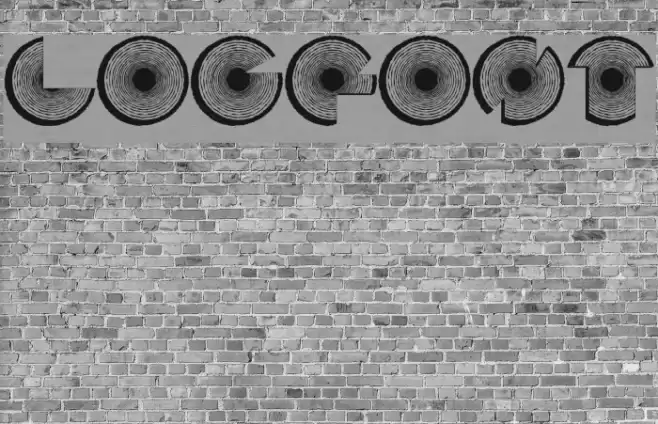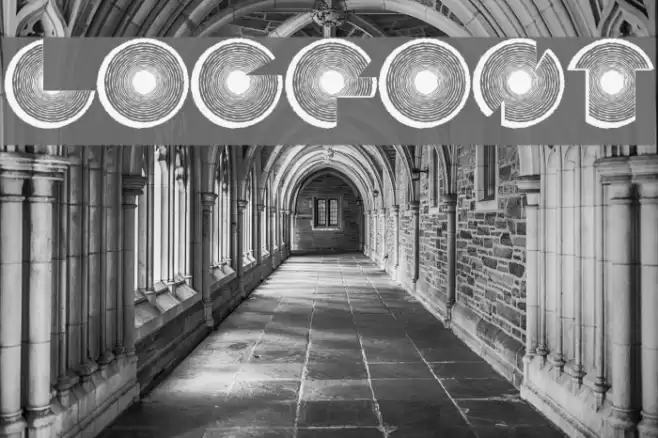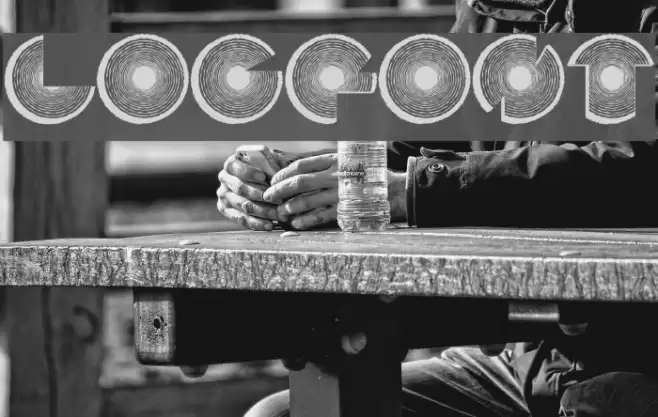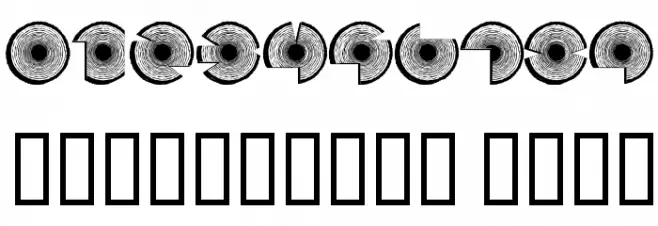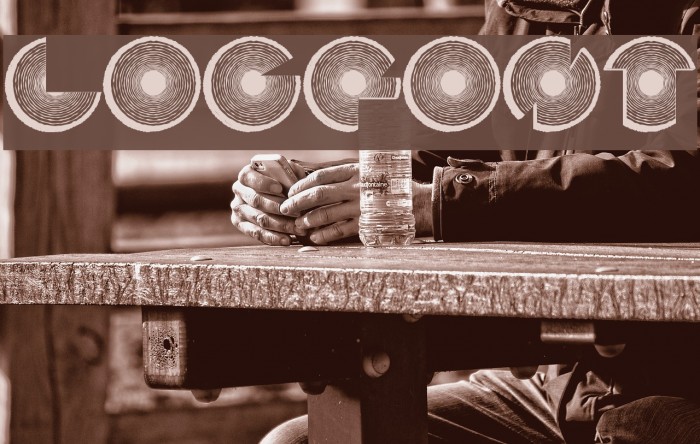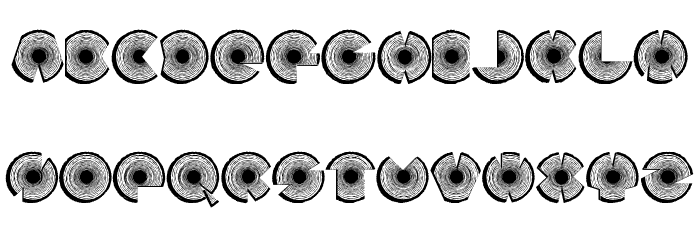
LogFont Font
LogFont Description
This font features a unique, circular design with intricate line patterns that create a sense of depth and movement. Each character is crafted to resemble a spiraling disc, giving it a distinct and artistic appearance. The font's style is highly decorative, making it stand out with its bold and creative look. The characters are consistent in their circular form, yet each letter maintains its own identity through subtle variations in the line work. This font is ideal for projects that require a striking visual impact, such as logos, posters, or album covers. Its artistic flair makes it less suitable for body text but perfect for headlines or titles that need to capture attention.
A decorative font with circular, spiral designs creating a bold visual impact from Uncategorized fonts.
- Proposed Projects: Ideal for logos, posters, album covers, and any project needing a striking visual element.